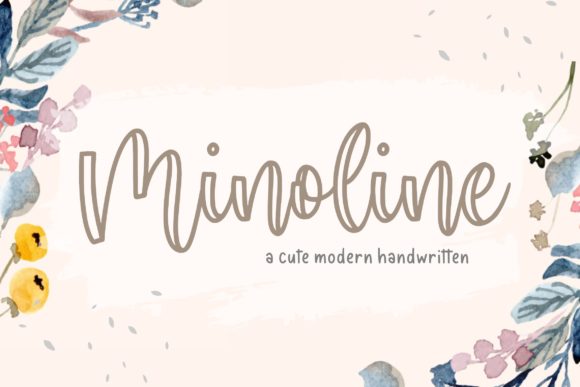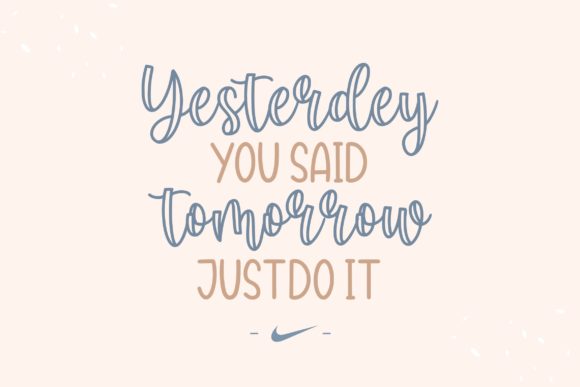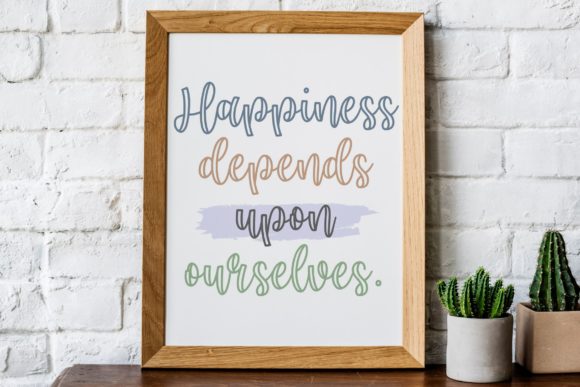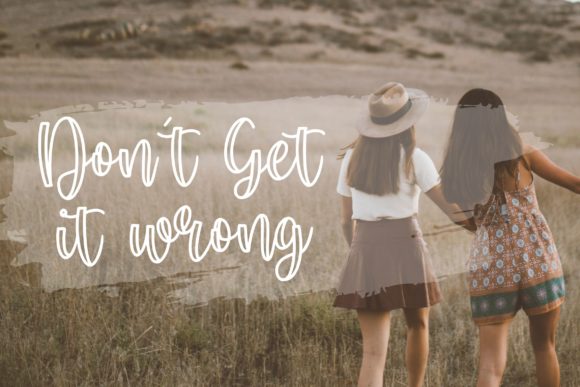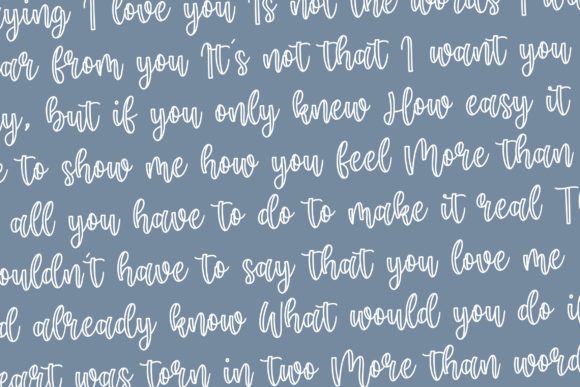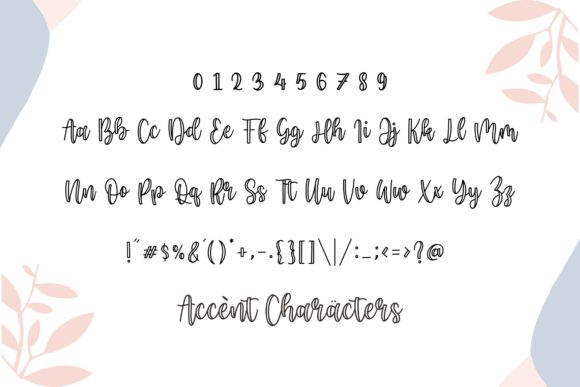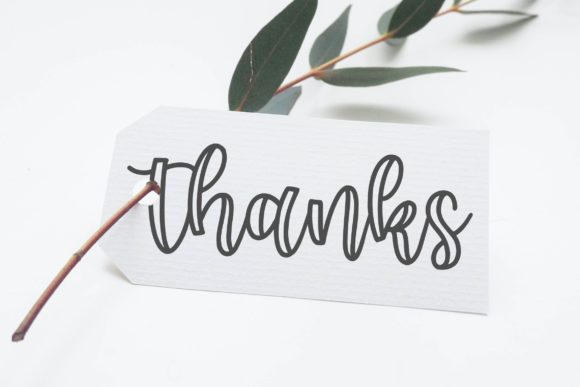
Minoline Font
About Minoline Font
Minoline is a cute handwritten font. It features an incredibly classic style, while still keeping a friendly feel. Fall in love with its authentic feel and use it to create gorgeous wedding invitations, beautiful stationary art, eye-catching social media posts, and cute greeting cards.